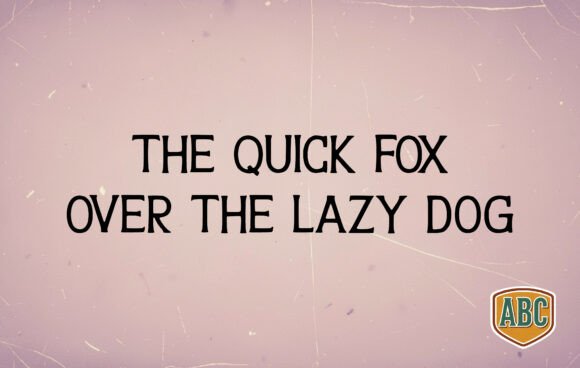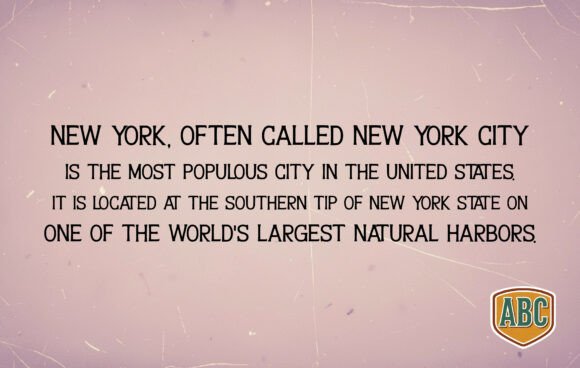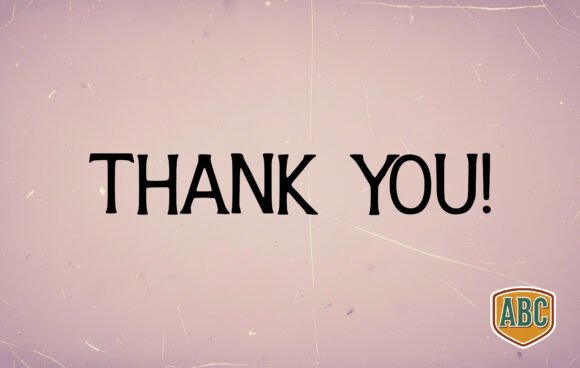
Introduction to Pale Violet Font
Discover the understated beauty of Pale Violet, a sophisticated display font that merges classic flare with a modern, hand-drawn sensibility.
Featuring clean lines and subtle, expressive tapers, this font captures a sense of quiet confidence and timeless grace With its balanced proportions and delicate serifs, Pale Violet exudes a boutique aesthetic that is both airy and grounded.
Key Features of Pale Violet Font